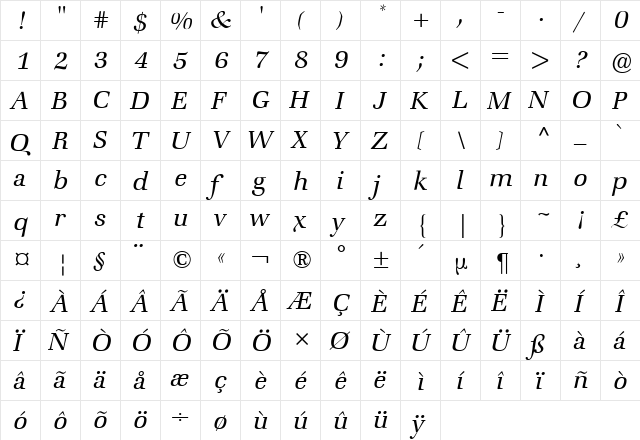
Zapf Book BQ Italic Font Preview
Zapf Book BQ Italic
Zapf Book BQ Italic Font Details
Design Context for Zapf Book BQ Typeface
Zapf Book BQ takes a measured approach to typography — its balanced proportions and neutral character make it a reliable workhorse for both digital and print work. Its italic angle brings a sense of urgency and motion to the letterforms.